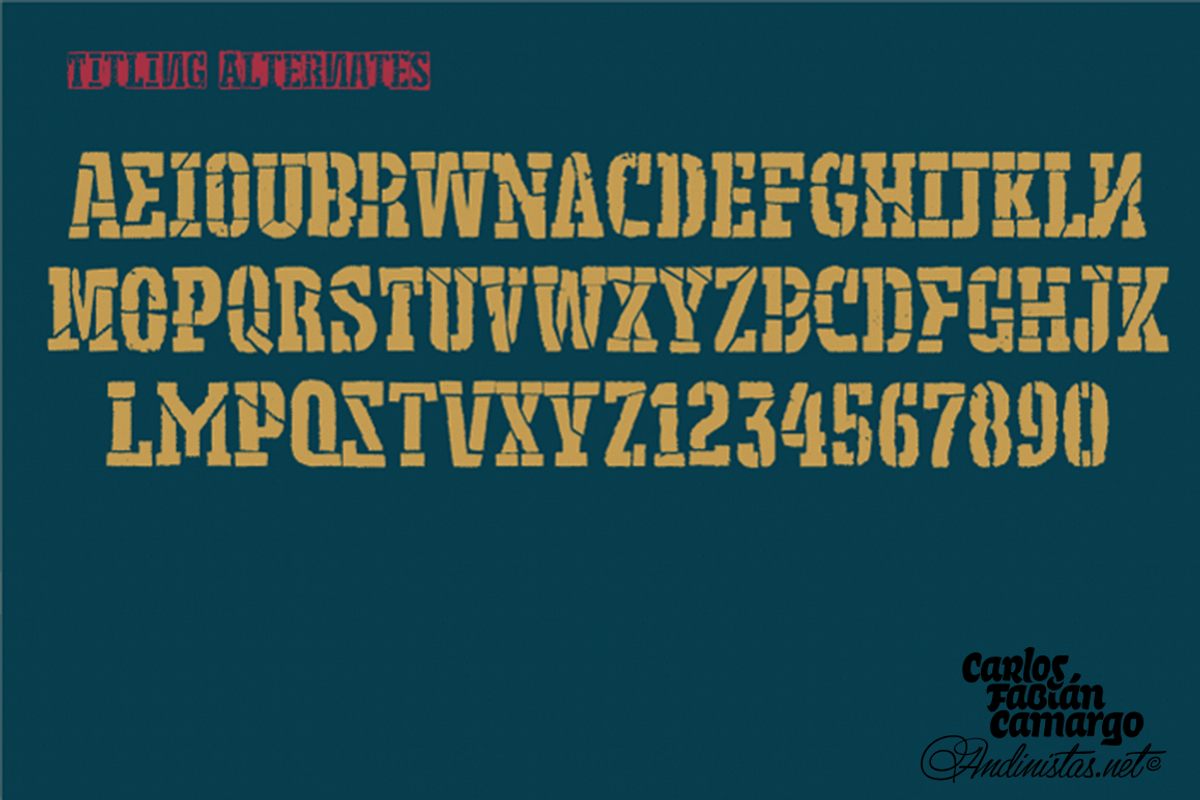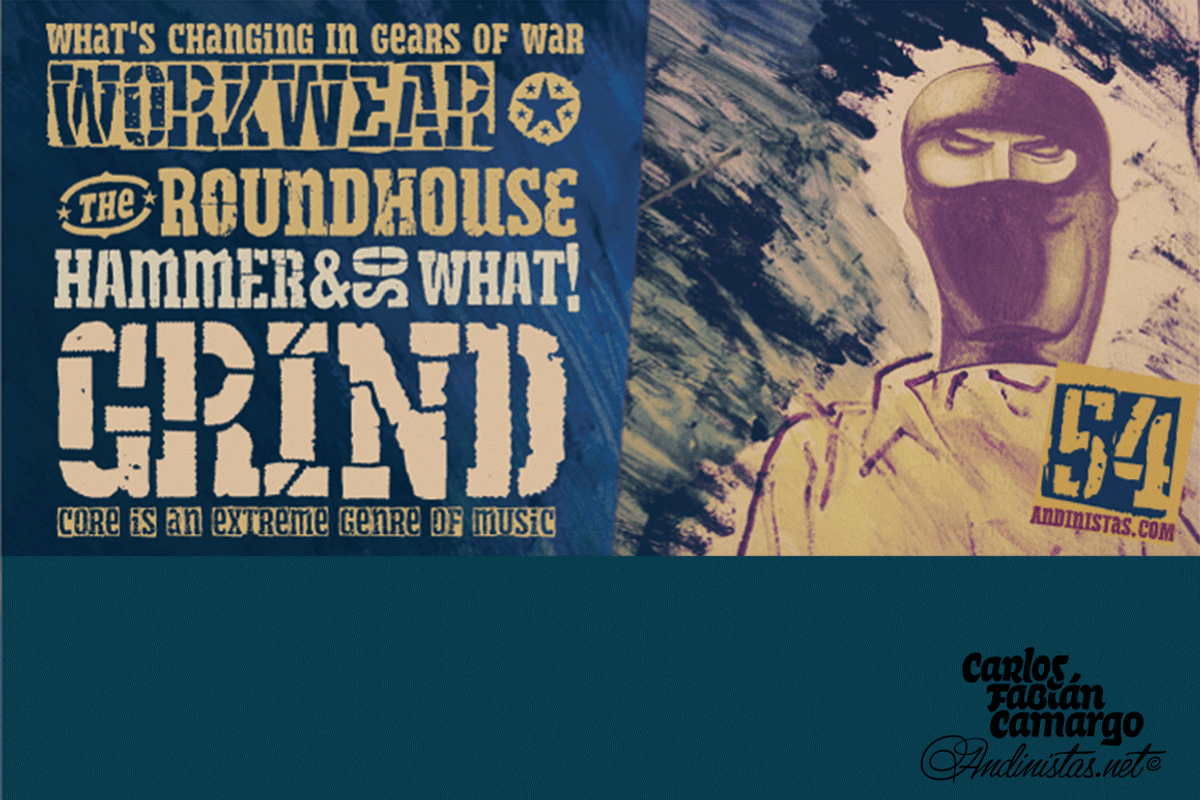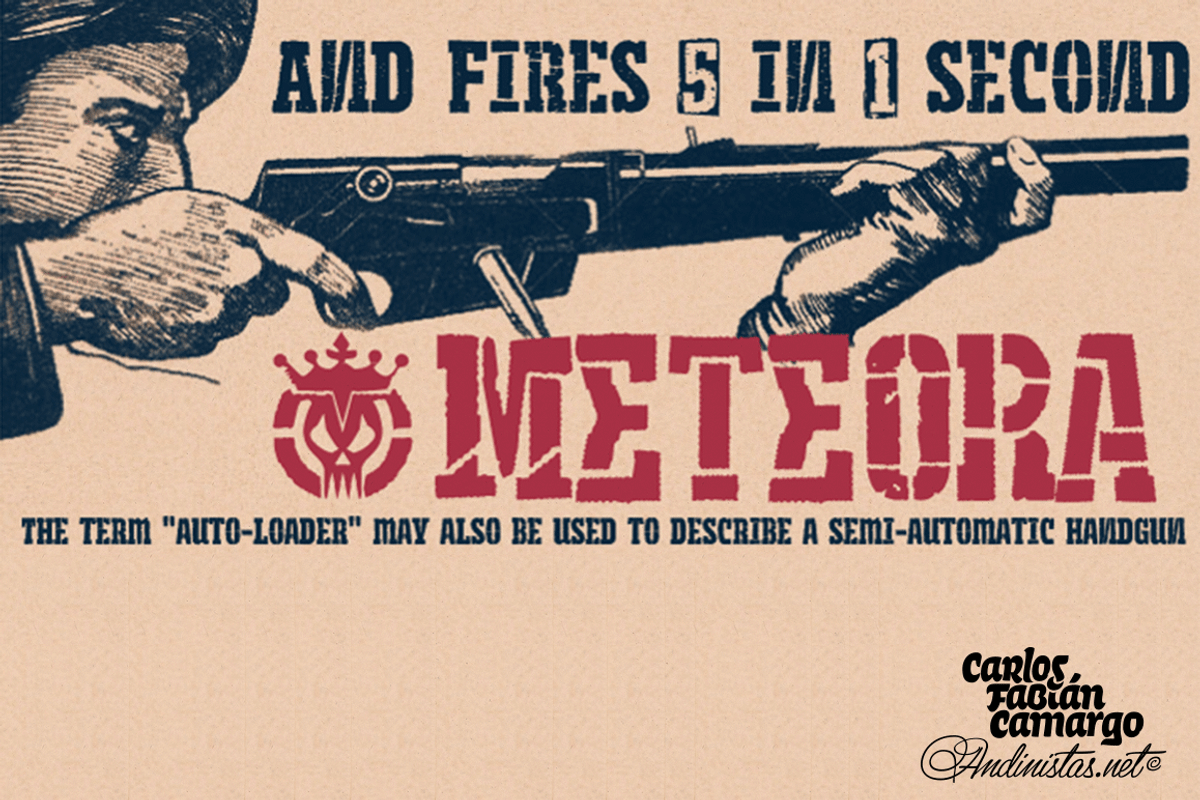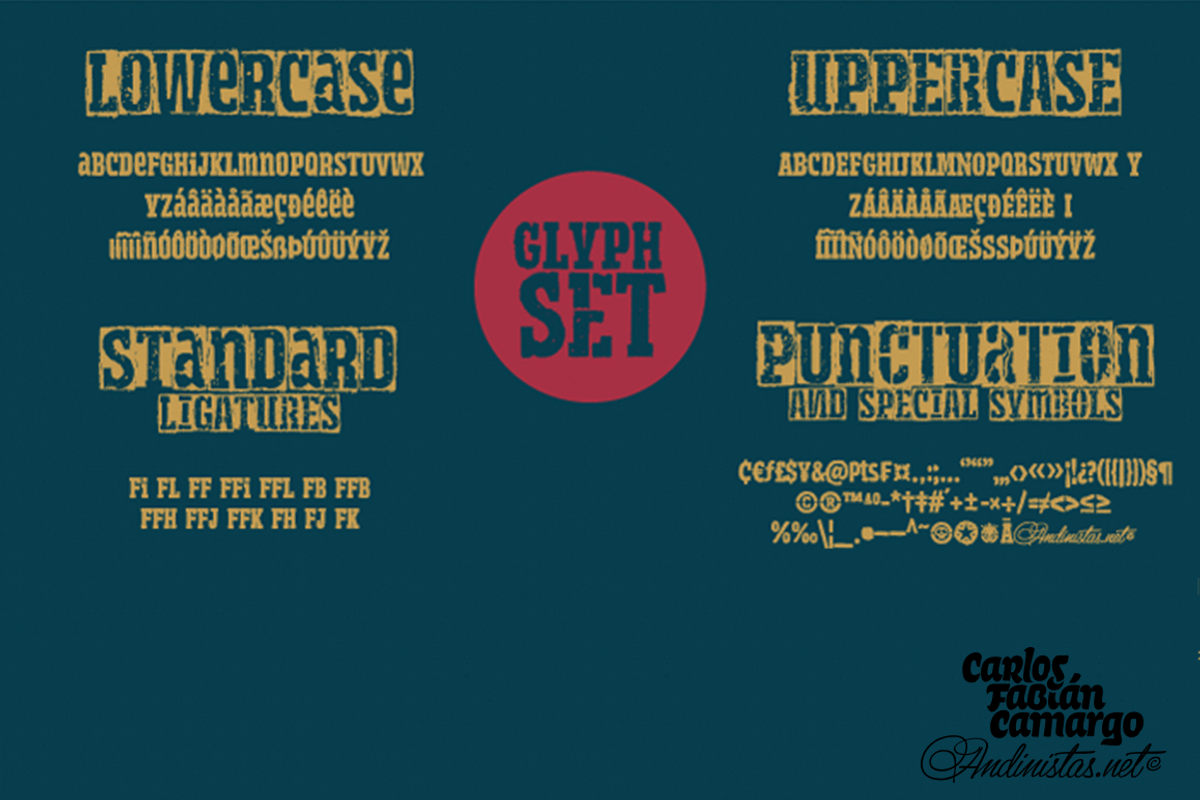
Meteora is a font designed for headlines by Carlos Fabian Camargo Guerrero. Its purpose is to be useful tool for solving decorative problems in graphic design which require broken letters without ascending and descending strokes. Due to its vertical and horizontal proportions these letters are compact, appealing and special to compose headlines and featured with worn look in covers, magazines, posters and advertising material. The first Meteora sketches were made by hand, photocopying and deforming letters of an old Letraset catalog, specifically from slab serif typefaces from the Nineteenth Century. Hence, uppers cases and lower cases were merged in the same height x, obtaining a narrow width, endings with some serifs and stencil cuts here and there. The amount of low contrast between thick and thin strokes brings strength and consistency with the contours apparently brokens.
Thus, developed features slab serif and sans-serif proposing empty and full shapes connoting decomposition and noise; and from a rigorous process of scanning letters I set up damaged letters, but drawn with the greatest possible thoroughness and high definition in 438 glyphs per font. Finally, in regular and bold variables I included opentype features with some discretionary ligatures and a few titling alternates. In Meteora bold all glyphs are framed simulating the effect of letters cut out of paper.